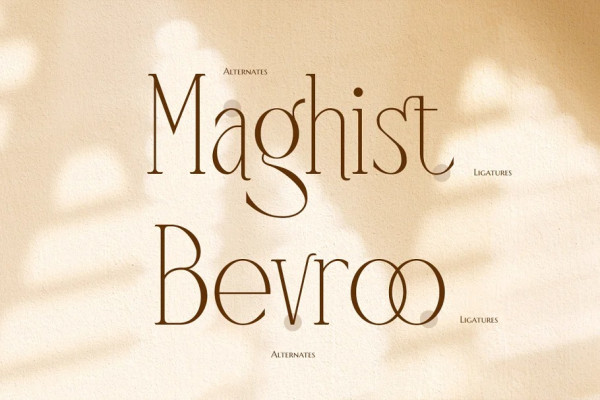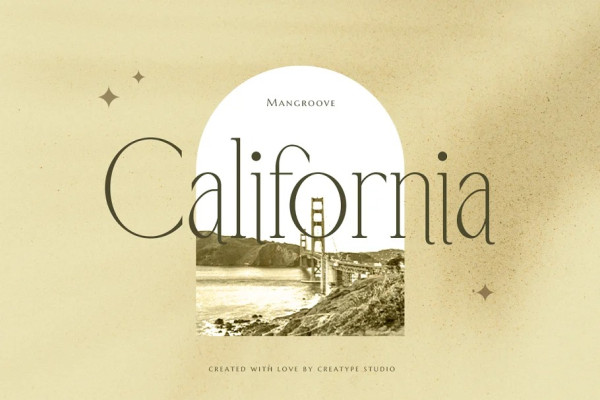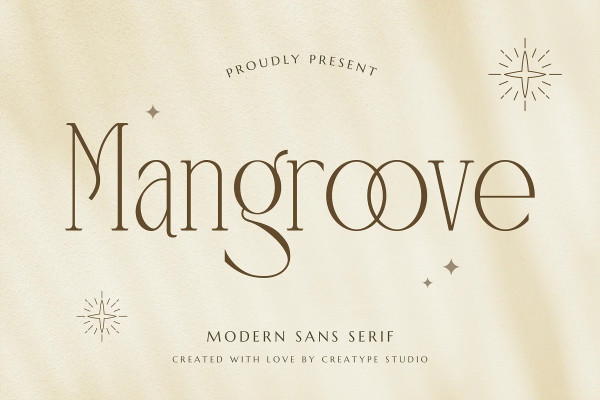
Mangroove Font
Mangroove Font, the elegant serif typeface that blends minimalism with delightful ligatures yet still playful
Mangroove is perfect for branding projects, logos, wedding designs, social media posts, advertisements, product packaging, product designs, label, photography, watermark, invitation, stationery, and any projects that need handwriting taste.